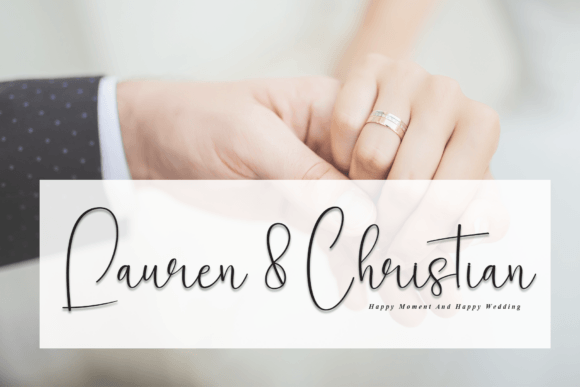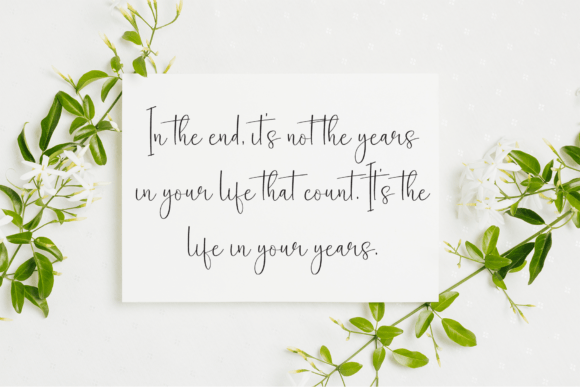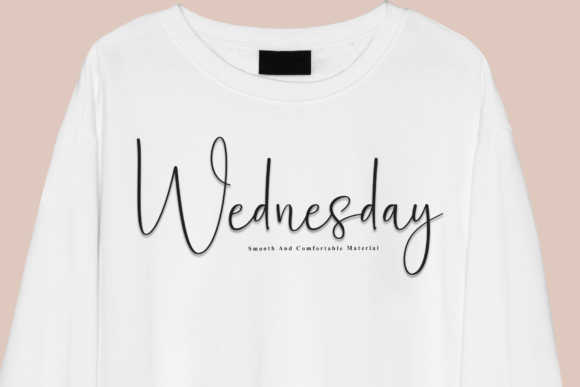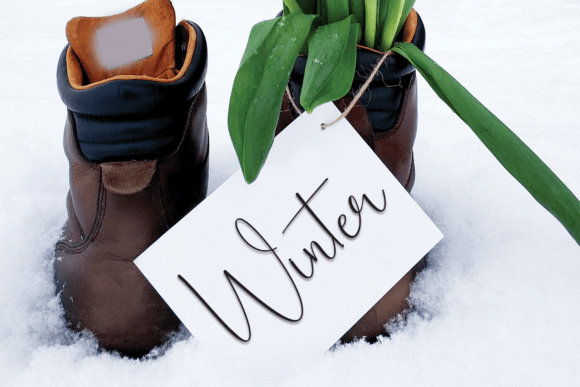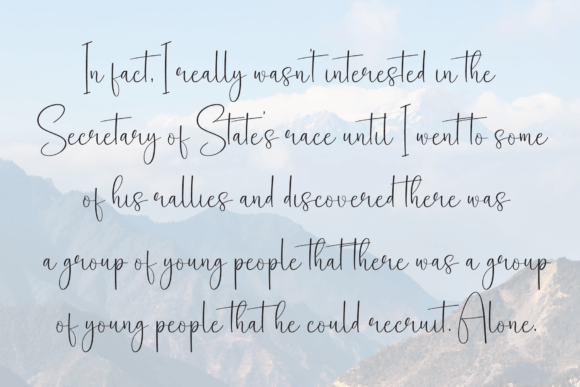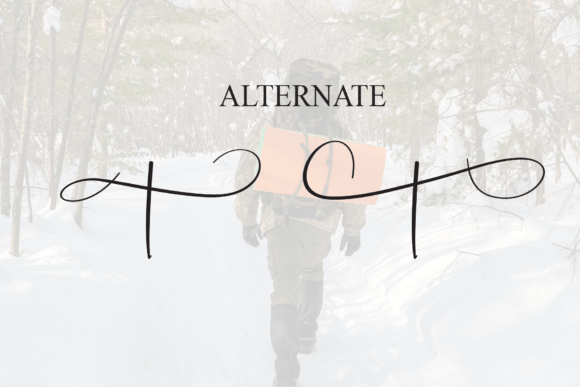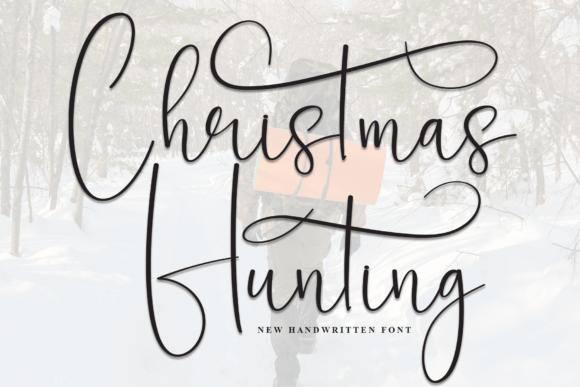
Introducing Christmas Hunting Font: A Sweet and Cursive Handwritten Delight
Are you looking for a font that captures the essence of the holiday season? Do you want to add a touch of joy and romance to your designs? Look no further than Christmas Hunting Font, a sweet and cursive handwritten font that’s perfect for a variety of design ideas. In this article, we’ll dive into the features and benefits of Christmas Hunting Font, and explore how you can use it to elevate your designs.
What is Christmas Hunting Font?
Christmas Hunting Font is a beautiful, cursive handwritten font that’s designed to bring a touch of festive cheer to your designs. With its gentle and flowing curves, this font is perfect for creating a warm and inviting atmosphere in your projects. Whether you’re designing holiday cards, gift tags, or social media graphics, Christmas Hunting Font is sure to add a joyful and romantic touch.
Features of Christmas Hunting Font
- Sweet and Cursive Handwritten Style: Christmas Hunting Font features a beautiful, cursive handwritten style that’s perfect for creating a personal and intimate feel in your designs.
- Versatile and Flexible: This font is highly versatile and can be used on a variety of design ideas, from holiday cards and gift tags to social media graphics and blog posts.
- Easy to Read: Despite its cursive style, Christmas Hunting Font is easy to read and understand, making it perfect for use in body text or headings.
- Scalable: This font is highly scalable, meaning you can use it in a variety of sizes and applications without losing quality or clarity.
Benefits of Using Christmas Hunting Font
So why choose Christmas Hunting Font for your designs? Here are just a few benefits of using this beautiful font:
- Adds a Touch of Festive Cheer: Christmas Hunting Font is designed to capture the essence of the holiday season, adding a touch of festive cheer to your designs.
- Creates a Personal and Intimate Feel: The cursive handwritten style of Christmas Hunting Font creates a personal and intimate feel in your designs, perfect for connecting with your audience.
- Perfect for Holiday Designs: This font is specifically designed for holiday designs, making it perfect for use in Christmas cards, gift tags, and other seasonal projects.
- Easy to Pair with Other Fonts: Christmas Hunting Font is easy to pair with other fonts, allowing you to create unique and interesting typography combinations.
Design Ideas Using Christmas Hunting Font
So how can you use Christmas Hunting Font in your designs? Here are a few ideas to get you started:
- Holiday Cards and Gift Tags: Use Christmas Hunting Font to create beautiful and personalized holiday cards and gift tags.
- Social Media Graphics: Add a touch of festive cheer to your social media graphics with Christmas Hunting Font.
- Blog Posts and Articles: Use Christmas Hunting Font to add a personal and intimate feel to your holiday blog posts and articles.
- Invitations and Party Decor: Use Christmas Hunting Font to create beautiful and festive invitations and party decor.
In conclusion, Christmas Hunting Font is a beautiful and versatile font that’s perfect for adding a touch of festive cheer to your designs. With its sweet and cursive handwritten style, this font is sure to capture the essence of the holiday season and bring joy and romance to your projects. Whether you’re a designer, crafter, or DIY enthusiast, Christmas Hunting Font is a must-have font for your holiday designs.